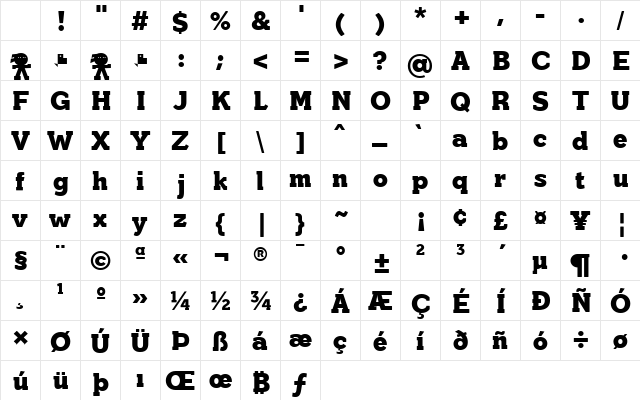
Yonky is a composed and adaptable typeface that performs quietly and consistently across a wide range of design contexts.
Pro Tip: Use Yonky in both headline and body roles to test its range before committing to a single application.